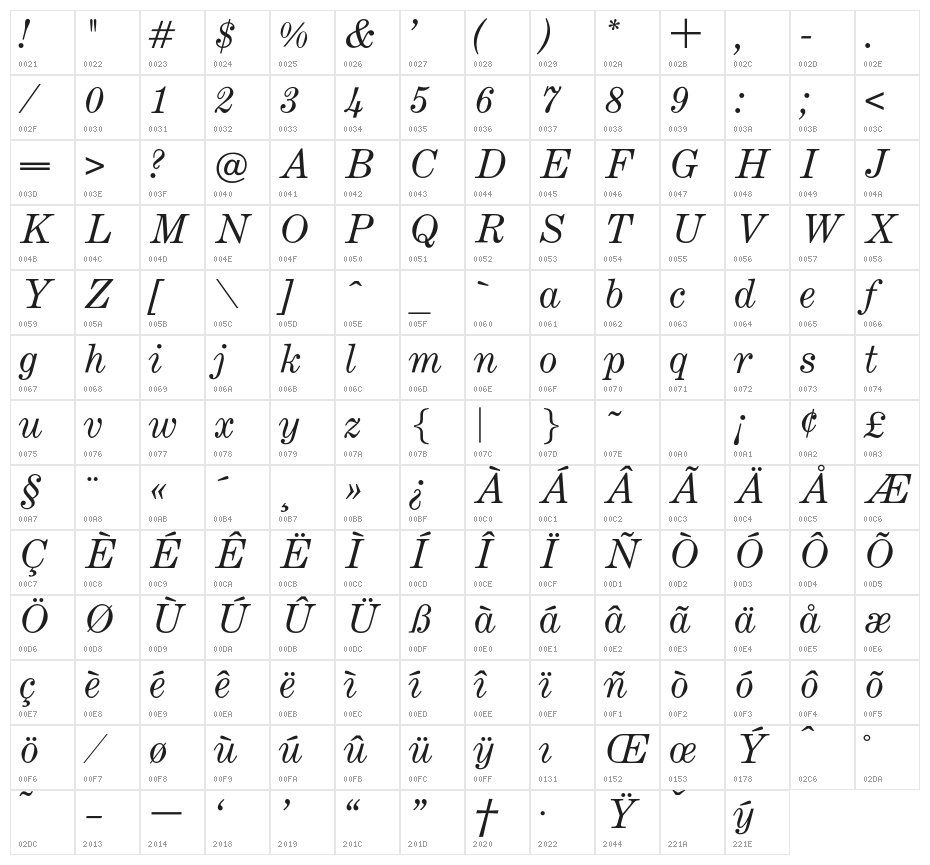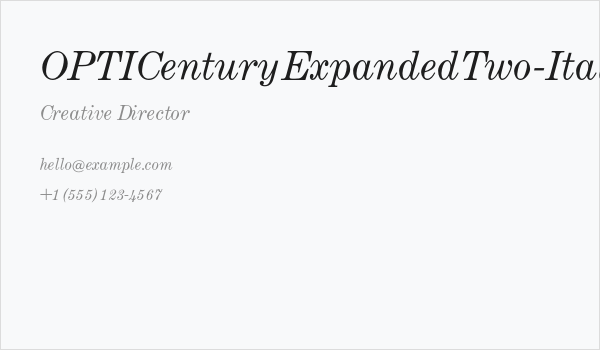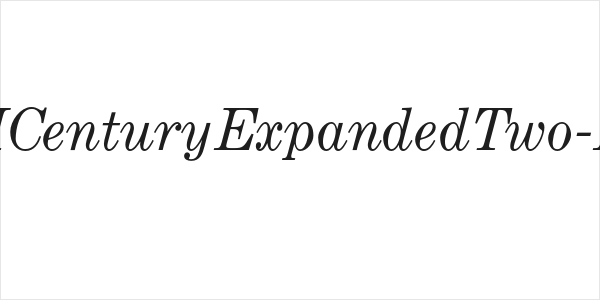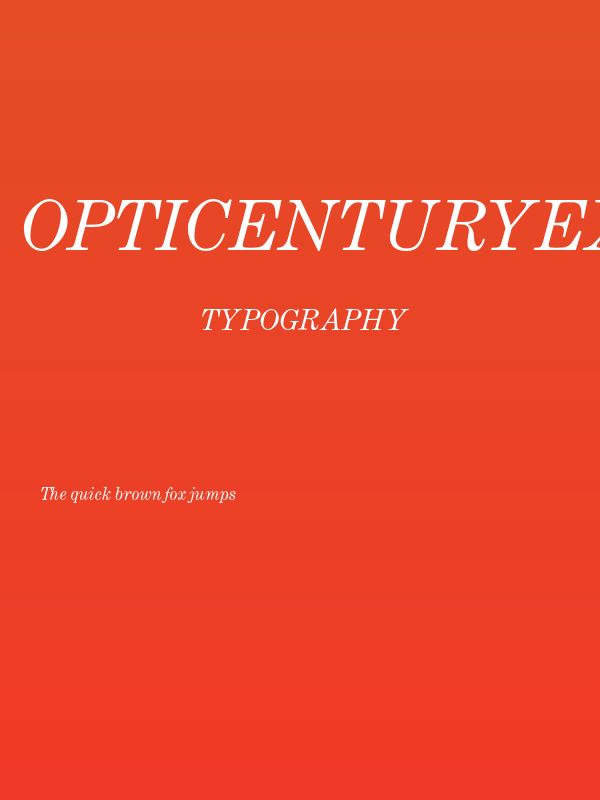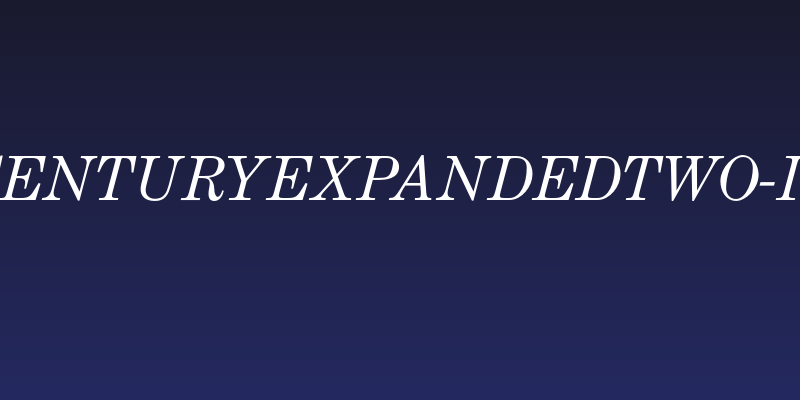
OPTICenturyExpandedTwo-Italic Font
OPTICenturyExpandedTwo-Italic Description
This font features an elegant and classic serif style with a distinct italic slant, giving it a sophisticated and timeless appearance. The characters are well-defined with moderate contrast between thick and thin strokes, enhancing readability while maintaining a stylish flair. The expanded width of the letters provides a sense of openness and grandeur, making it suitable for various design applications. The uppercase letters exhibit a traditional serif structure, while the lowercase letters have a graceful flow, adding to the overall aesthetic appeal. The numerals and special characters are designed to complement the alphabet, ensuring consistency throughout the typeface.
| Use Case | Headlines, Logos, Editorial design |
| Proposed Projects | Ideal for use in formal invitations, luxury branding, editorial design, and elegant packaging. |